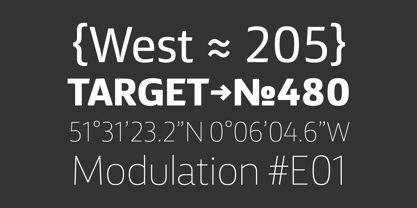
FS Silas Sans
FS Silas® Sans
by Fontsmith
FS Silas Sans Font Family was designed by Jason Smith, Béla Frank, Fernando Mello, Phil Garnham and published by Fontsmith. FS Silas Sans contains 10 styles family package options.
The great enigma
There are hidden depths to FS Silas Sans. First impressions are of a functional, multi-purpose typeface with a cool, edgy, angular character. Gaze into its eyes a little longer, though, and you'll detect a more nuanced, colourful personality, with full, open, satisfyingly squarish forms balancing the abruptness of the sharply-angled terminals and ascenders. Authoritative, official and stern on the outside; amiable and welcoming on the inside.
You’re so Dane
The designers, led by Phil Garnham, were trying to capture something straight-talking, authentic, and a little... Scandinavian. ‘We were thinking about some of the characters in Danish dramas that were on in the early stages of the font’s development, like The Killing and The Bridge,’ says Phil. ‘The police officers, that is, not the psychopathic killers. Smart and a bit cool, but with a warm heart.’ For a good Danish name, we settled on Silas. It was that or Hans-Christian.
The finer points
Silas Sans rewards close inspection. Study, if you will, its amply squarish forms, the roomy ‘o’ and ‘e’, in particular. Observe the angular ascenders and terminals of, for example, the ‘L’, ‘I’, ‘d’ and ‘i’, inferring the movement and lift of a pen. Consider the cuts to the ‘A’ and ‘v’ that create harmony with adjacent letters. And scrutinise the subtle ink traps set within the ‘A’ and ‘Y’ for reproduction at small sizes.
A fine subject, we think you’ll agree, and available in a versatile range of weights to make (with FS Silas Slab) a typographic system with a comprehensive hierarchy.
Designers: Jason Smith, Béla Frank, Fernando Mello, Phil Garnham
Publisher: Fontsmith
Foundry: Fontsmith
Design Owner: Fontsmith